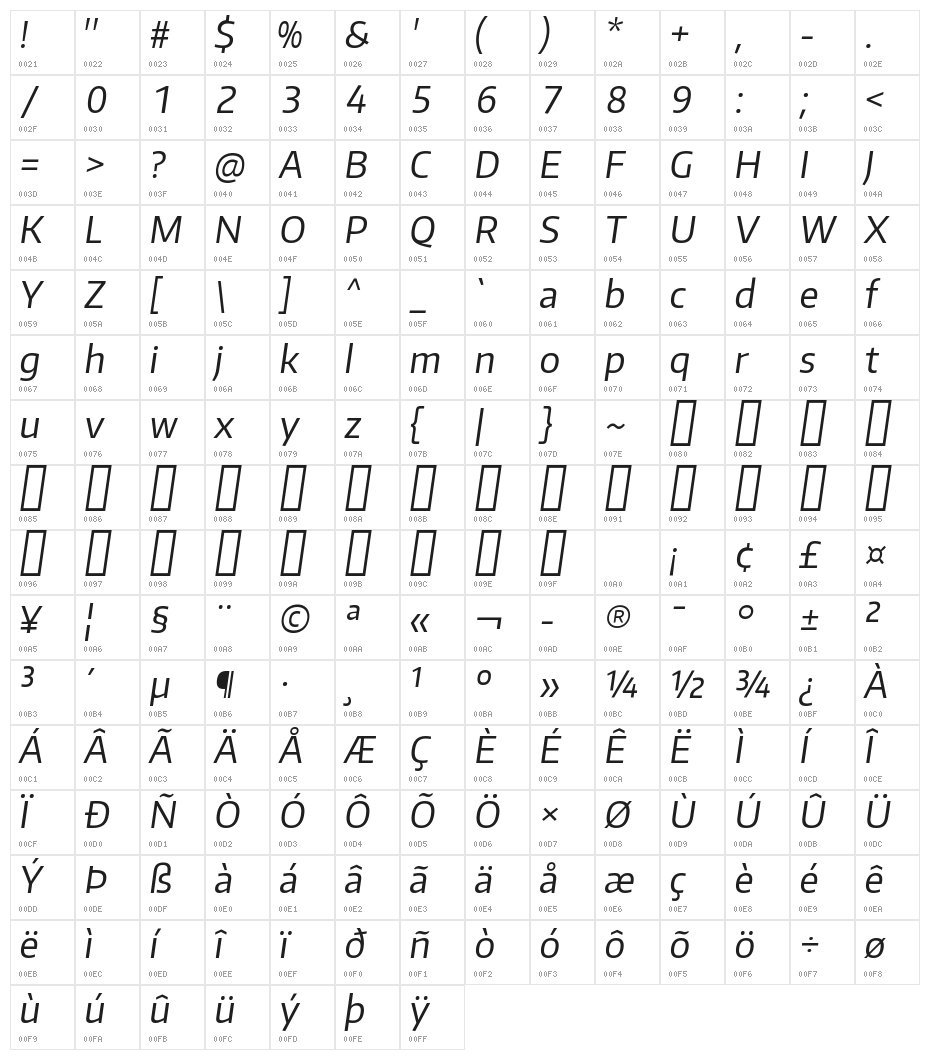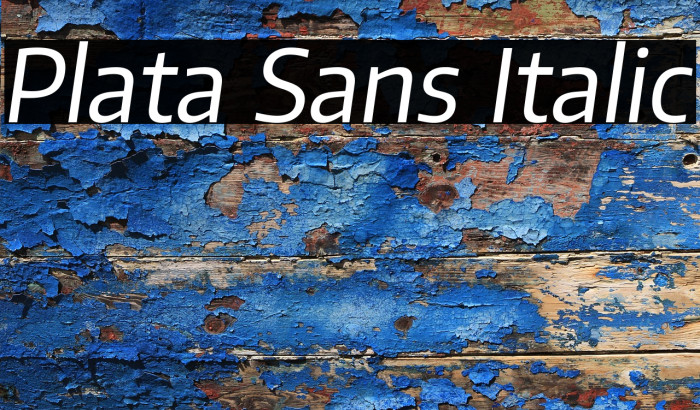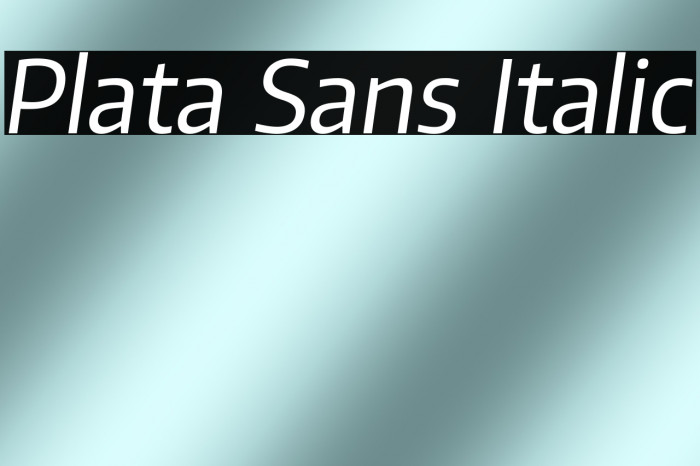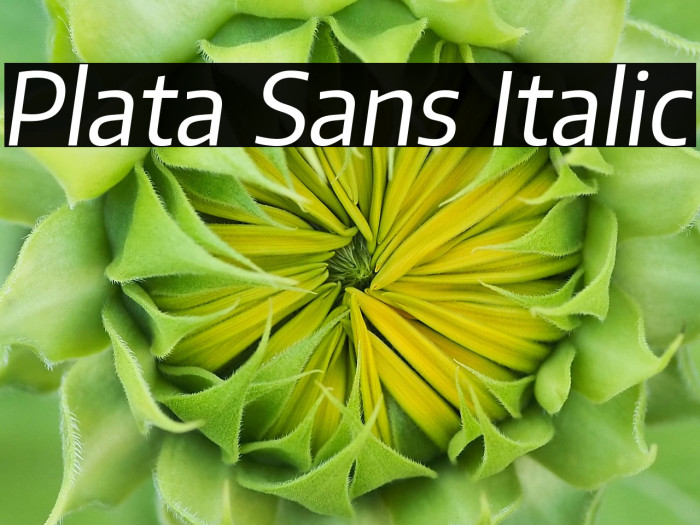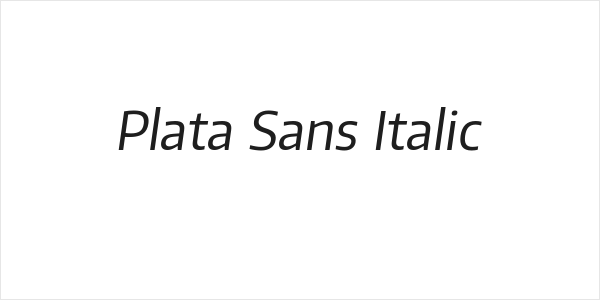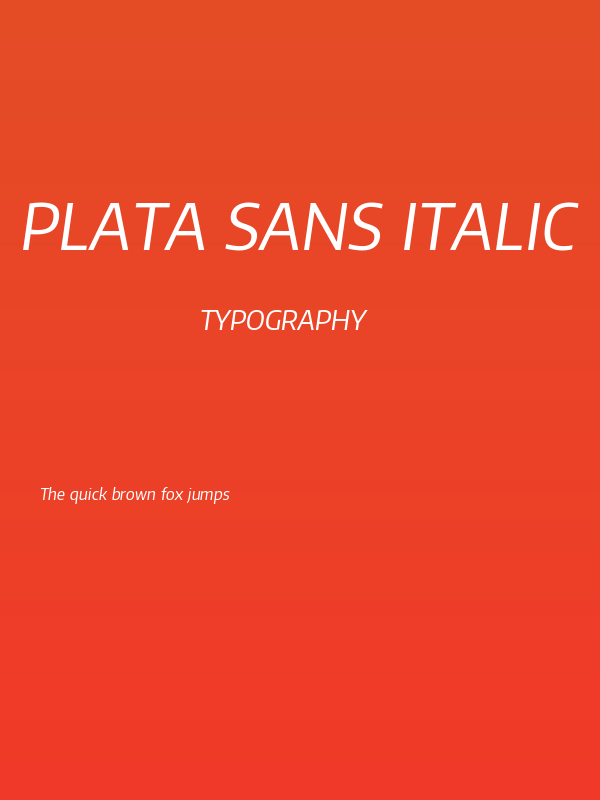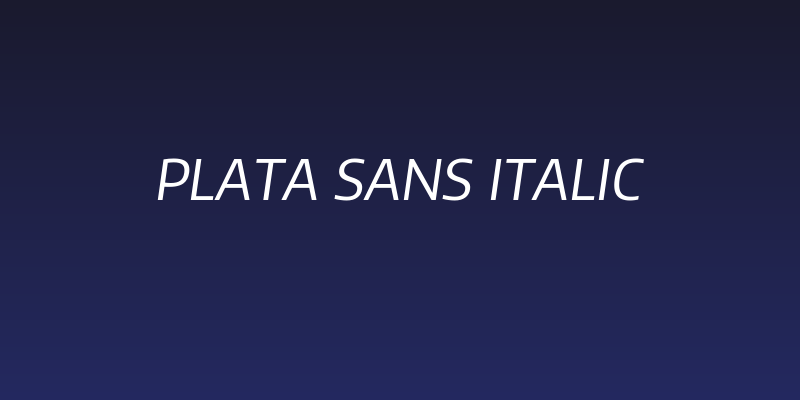
Plata Sans Italic Font
Plata Sans Italic Description
This font exhibits a sleek and modern sans-serif style with a noticeable italic slant, giving it a dynamic and forward-leaning appearance. The characters are clean and streamlined, with smooth curves and a consistent stroke width that maintains readability. The uppercase and lowercase letters are well-proportioned, and the numerals are clear and distinct. The special characters are designed to complement the overall aesthetic, making this font versatile for various applications. Its contemporary look is suitable for digital and print media, offering a professional yet approachable feel.
| Proposed Projects | Ideal for branding, advertising, web design, and editorial layouts where a modern and dynamic look is desired. |